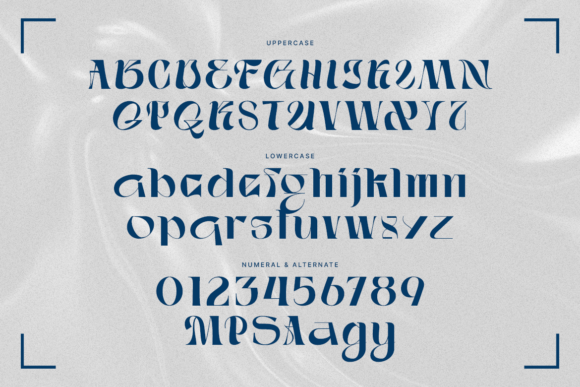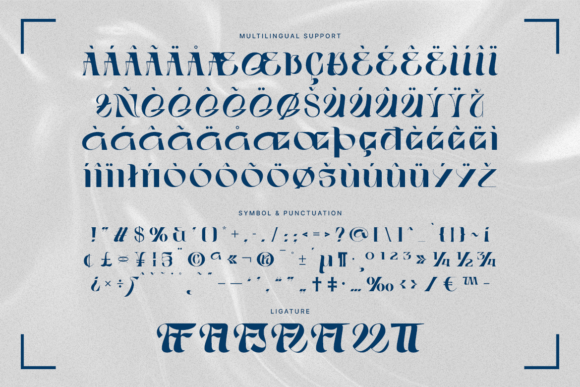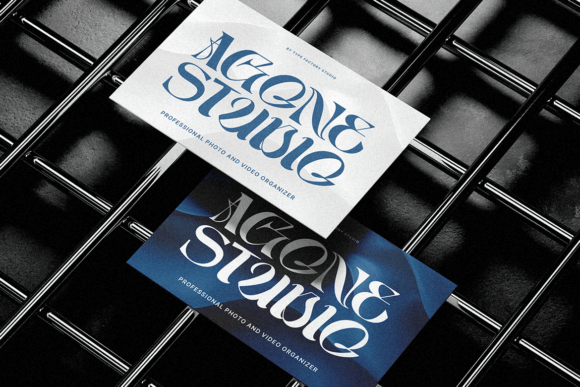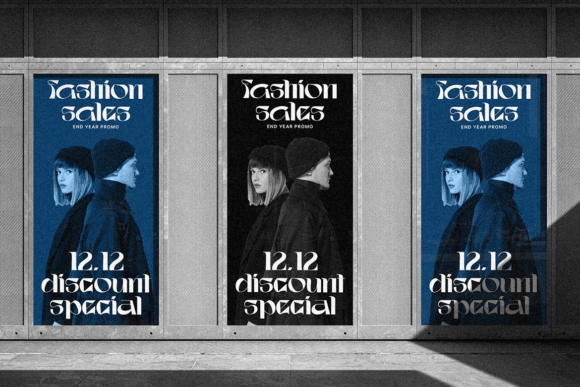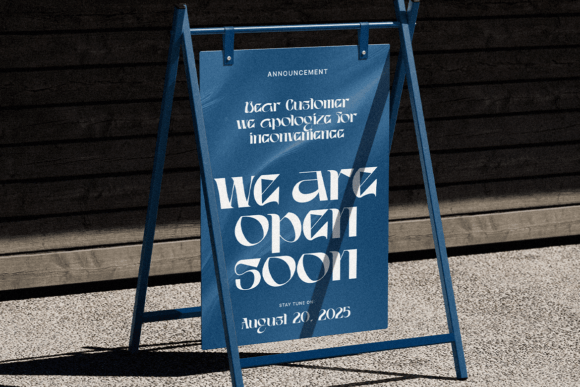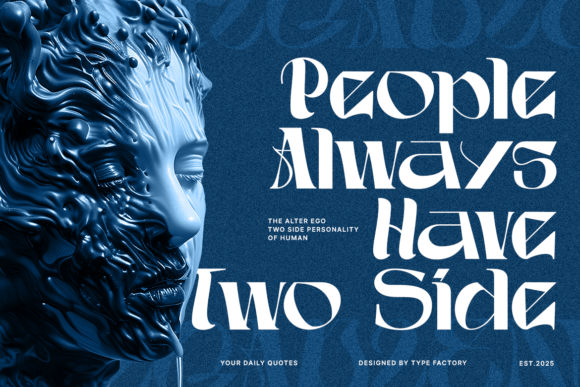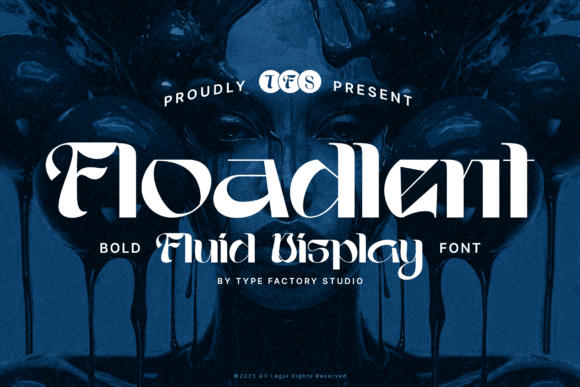
Introducing Floadlent Font: A Bold Display Serif Typeface
In the world of typography, a new font has emerged that is sure to capture the attention of designers and crafters alike. Meet Floadlent, a bold display serif typeface that blends flowing curves with sculpted letterforms to create a dramatic and expressive visual rhythm.
A Unique Design
Floadlent’s design combines strong vertical structure with smooth, fluid strokes, creating a sense of movement and energy. The font’s distinctive terminals and refined contrast give it a striking personality, making it suitable for a wide range of applications, from headlines and editorial layouts to fashion branding, posters, packaging, and statement typography.
Balancing Decorative Details with Readability
One of the standout features of Floadlent is its ability to balance decorative details with readability. Even in large-format applications, the font remains clear and legible, making it perfect for titles, headings, and other display text. This balance is achieved through a careful consideration of the font’s design elements, including the use of flowing curves and sculpted letterforms.
A Versatile Font for Creative Projects
Floadlent is a versatile font that includes a wide range of characters, including uppercase, lowercase, numerals, ligatures, punctuation, symbols, and multilingual support. This flexibility makes it suitable for various creative and commercial projects, from fashion branding and editorial design to packaging and advertising.
Bringing Movement, Contrast, and Character to Modern Display Typography
Floadlent is designed to bring movement, contrast, and character into modern display typography. Its bold, expressive design makes it perfect for headlines and titles, while its refined contrast and balanced decorative details ensure that it remains readable even in large-format applications.
Key Features of Floadlent
- Bold display serif typeface: Floadlent is a bold and dramatic font that is perfect for headlines and titles.
- Flowing curves and sculpted letterforms: The font’s unique design combines flowing curves with sculpted letterforms to create a sense of movement and energy.
- Strong vertical structure: Floadlent’s strong vertical structure provides a sense of stability and balance.
- Refined contrast: The font’s refined contrast gives it a striking personality and ensures that it remains readable even in large-format applications.
- Multilingual support: Floadlent includes multilingual support, making it suitable for a wide range of languages and cultures.
Using Floadlent in Your Design Projects
Floadlent is a versatile font that can be used in a wide range of design projects, from fashion branding and editorial design to packaging and advertising. Here are a few ideas for using Floadlent in your design projects:
- Headlines and titles: Floadlent is perfect for headlines and titles, where its bold and expressive design can make a big impact.
- Fashion branding: The font’s unique design and refined contrast make it suitable for fashion branding, where it can add a touch of elegance and sophistication.
- Editorial design: Floadlent can be used in editorial design to add a touch of drama and flair to articles and features.
- Packaging: The font’s bold and expressive design makes it perfect for packaging, where it can help to grab attention and stand out on store shelves.
Floadlent is a bold display serif typeface that is sure to capture the attention of designers and crafters alike. Its unique design, refined contrast, and balanced decorative details make it suitable for a wide range of applications, from headlines and editorial layouts to fashion branding, posters, packaging, and statement typography. With its multilingual support and versatility, Floadlent is a font that can be used in a wide range of creative and commercial projects.